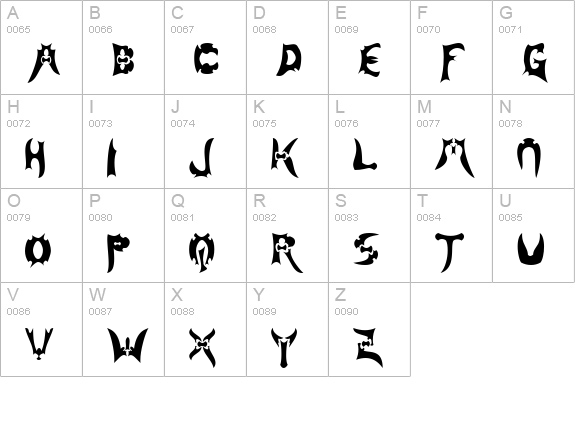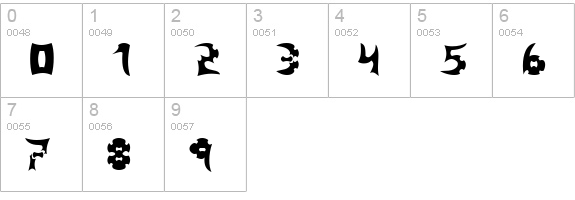
Magehunter Font Details
Magehunter font is a captivating and versatile typeface that is perfect for adding a touch of mystique and intrigue to any design project. With its elegant and sophisticated letterforms, it exudes a sense of magic and enchantment that will mesmerize your audience. This font is not only visually stunning, but it is also incredibly user-friendly, making it suitable for both experienced designers and beginners alike. Its smooth and flowing curves, combined with its sharp edges and intricate details, create a harmonious balance that is visually pleasing and easy to read. One of the most remarkable aspects of Magehunter font is that it is freely available to download at FontsMarket.com. This means that you can easily access this captivating typeface without having to spend a dime. Whether you are a professional designer looking for a unique font to enhance your projects or a hobbyist looking to experiment with different styles, Magehunter font is the perfect choice. With its wide range of available weights and styles, you can easily customize the look and feel of your designs to suit your needs. Whether you are creating captivating headlines or elegant body text, this font will add a touch of sophistication and charm to your work. So why wait? Download Magehunter font today from FontsMarket.com and unlock a world of endless design possibilities. Whether you are working on a branding project, a website design, or any other creative endeavor, let Magehunter font be your trusted companion in creating captivating and mesmerizing designs.